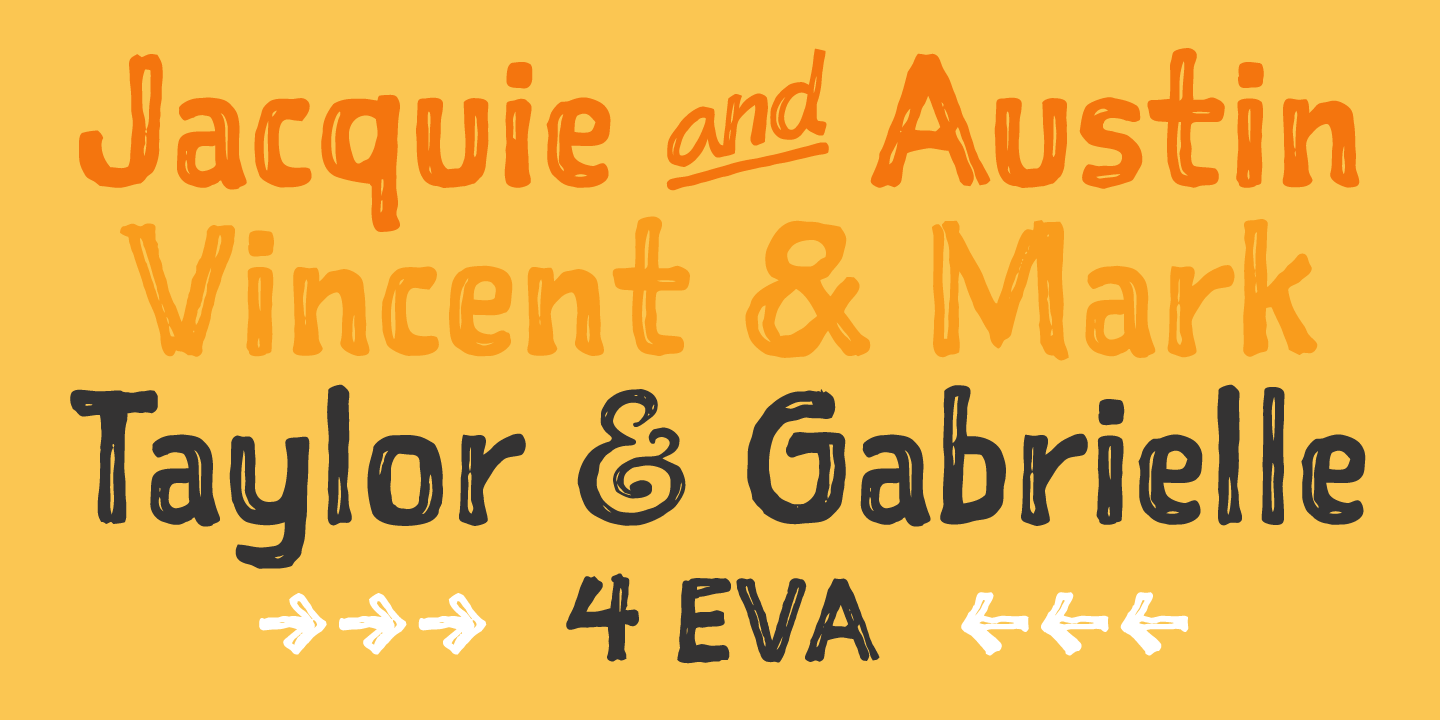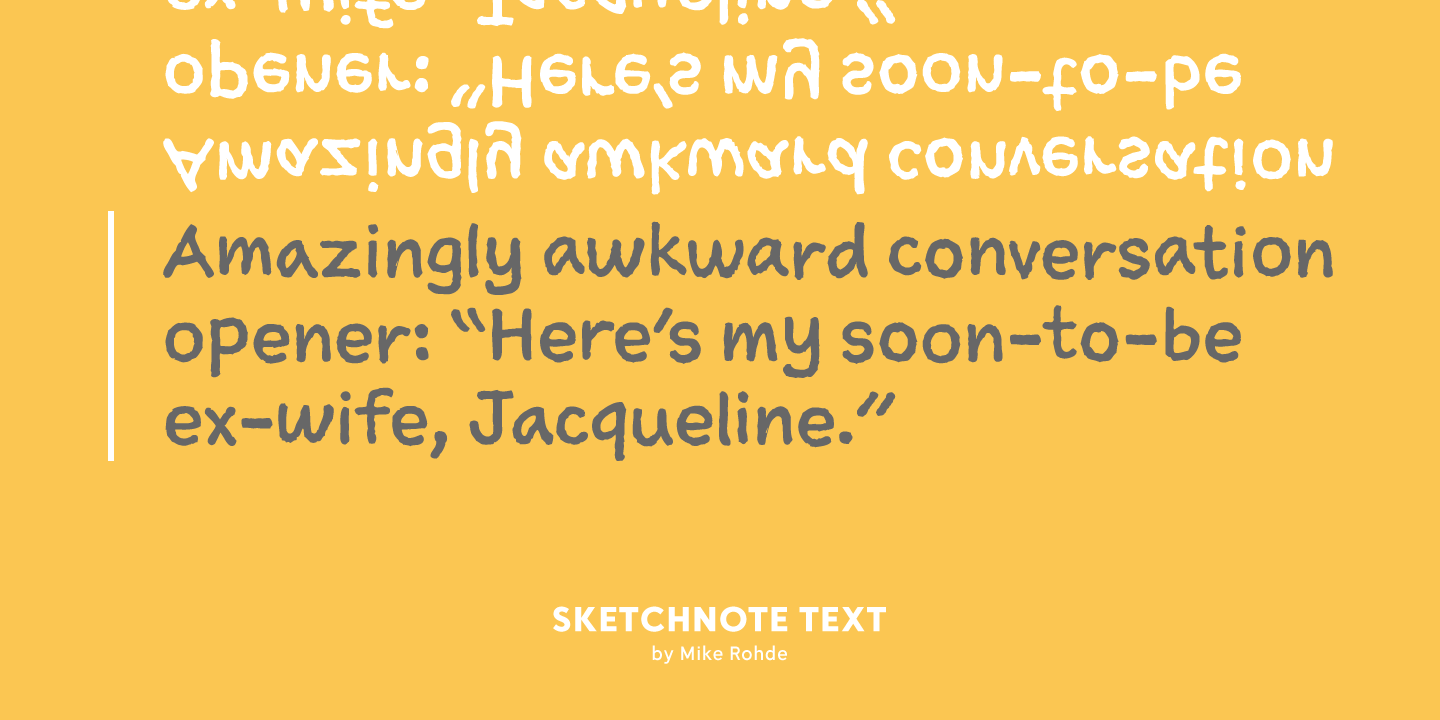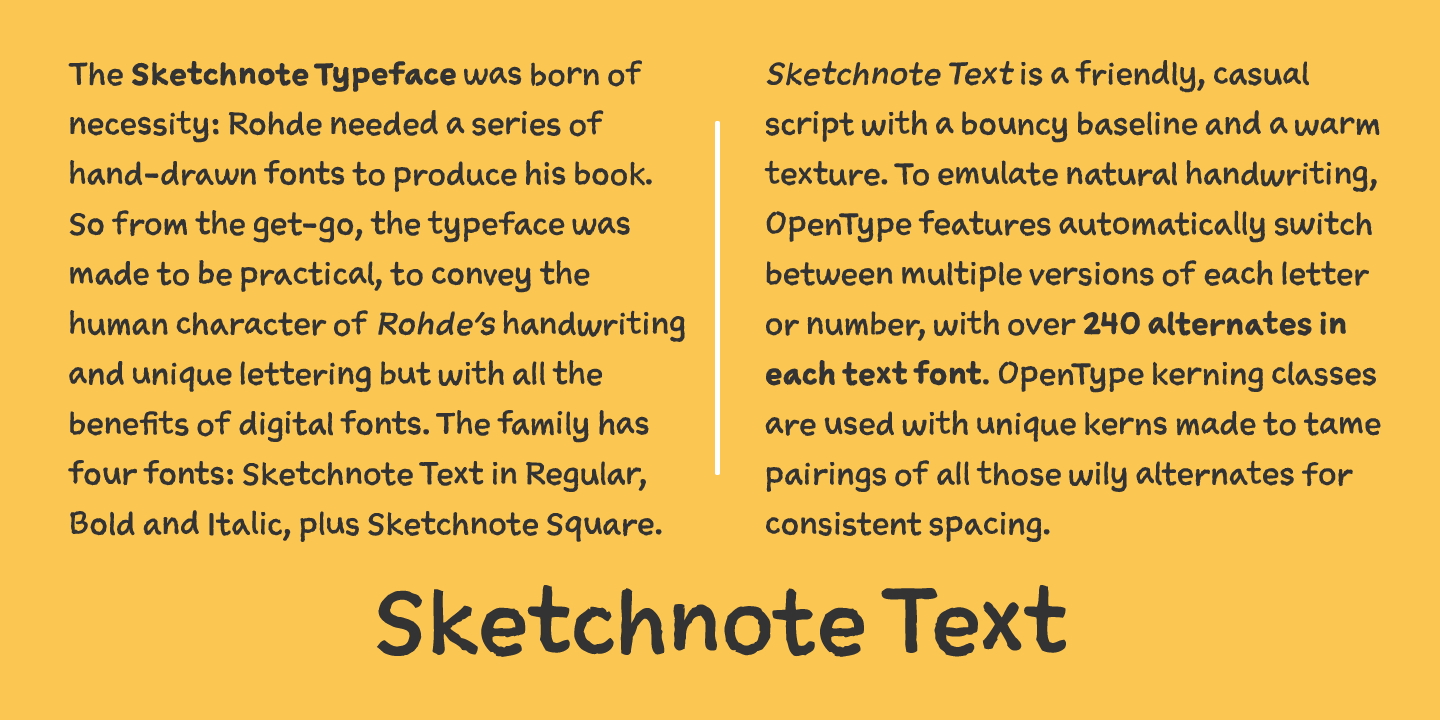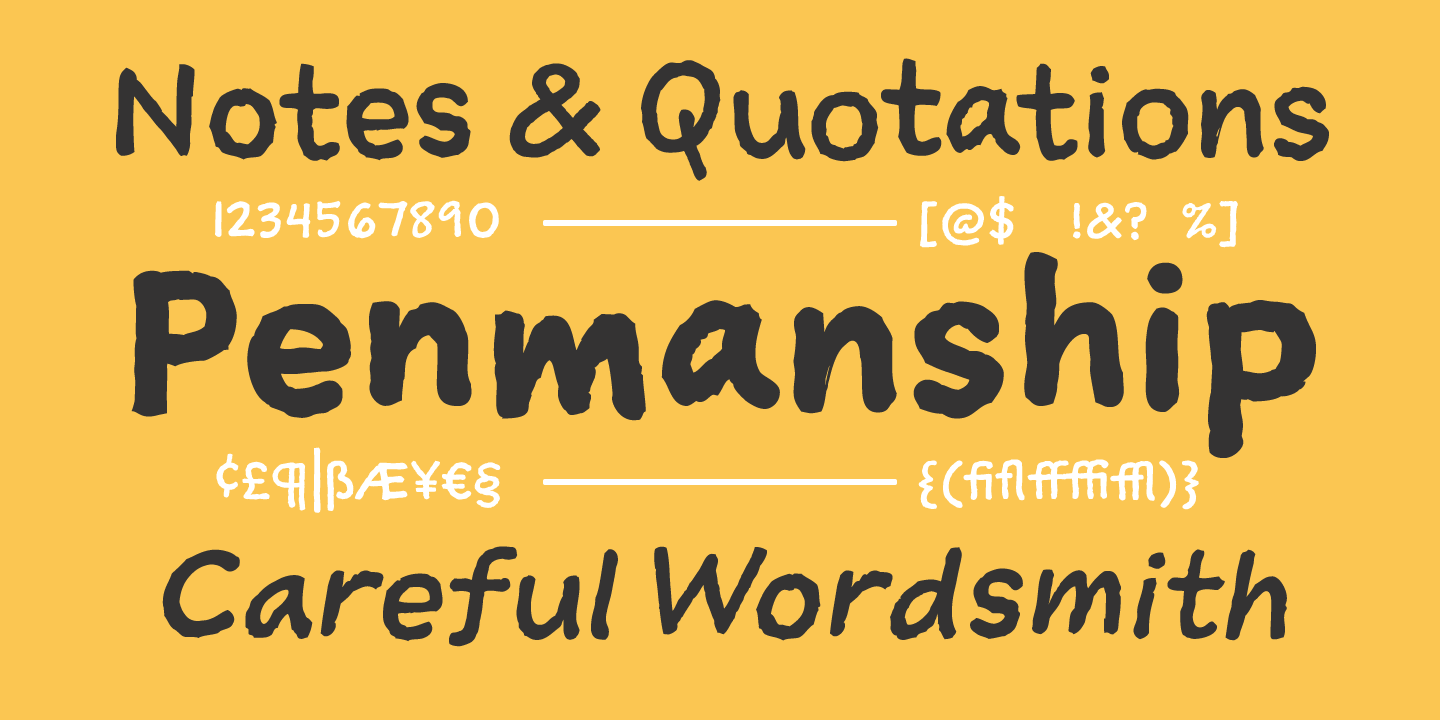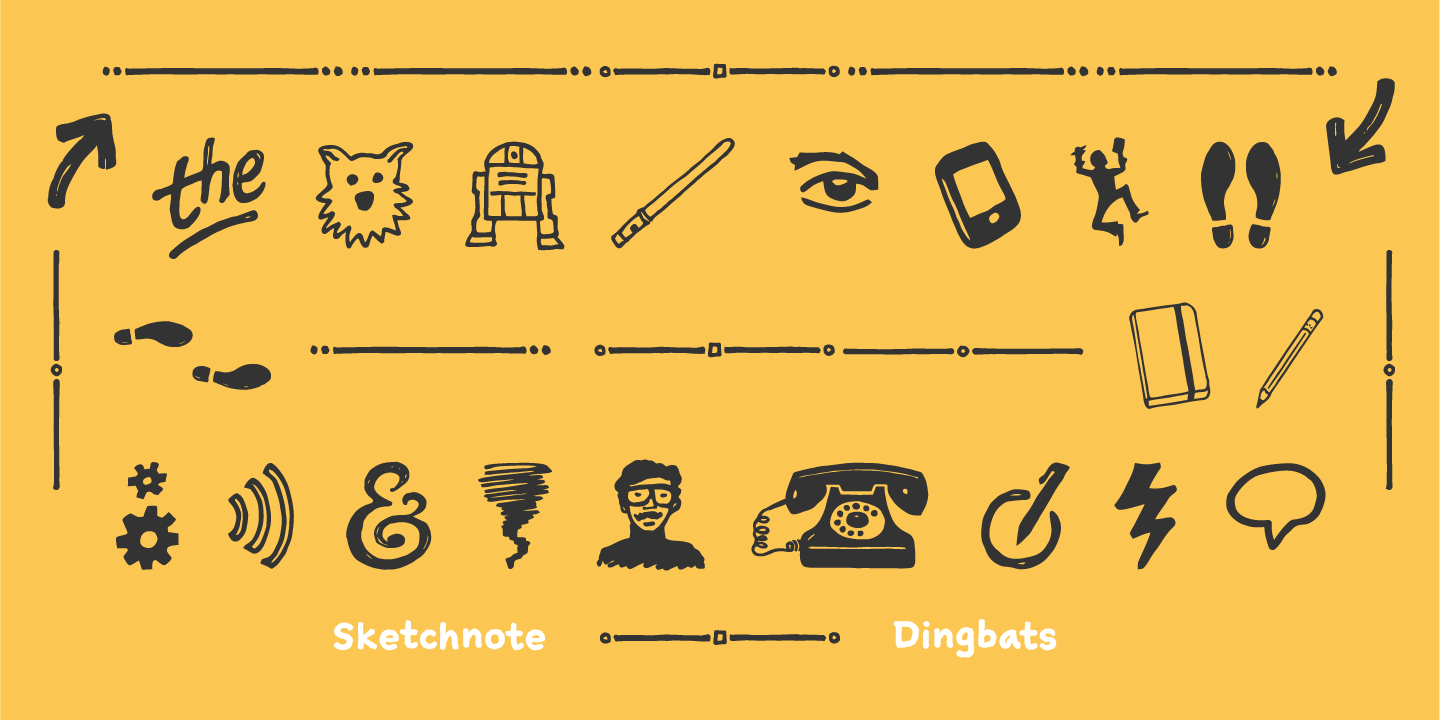
About Sketchnote
The Sketchnote Handbook is drawn as much as it is written. The author, designer and illustrator Mike Rohde saught to make an inspirational, visually unique book that introduces readers to sketchnoting?a practical art Rohde developed to translate ideas…